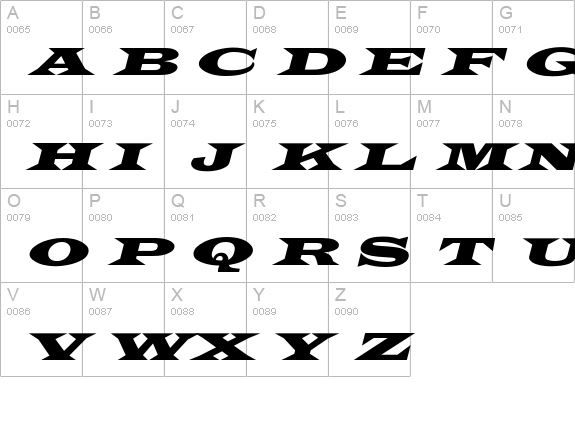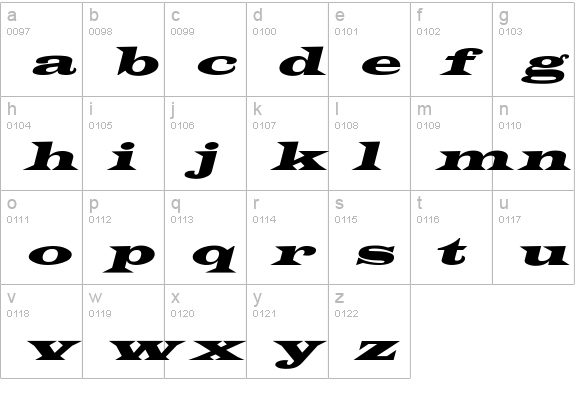
James-WideExtObl-Normal is the standard, neutral variant in the James typeface family \xE2\x80\x94 well suited to general body text, paragraphs, and standard typographic work.
Introducing James-WideExtObl-Normal font, a sleek and modern typeface that is sure to make a lasting impression. With its wide and extended oblique design, this font exudes confidence and sophistication. Perfect for a variety of design projects, from branding to advertising, James-WideExtObl-Normal is versatile and adaptable. What sets this font apart is its seamless combination of elegance and readability. Each character is expertly crafted, ensuring legibility at any size. The clean lines and balanced proportions make James-WideExtObl-Normal a pleasure to read, while the oblique angle adds a touch of uniqueness to your designs. But what truly makes James-WideExtObl-Normal font stand out is its accessibility. It is freely available to download at FontsMarket.com, allowing designers and creatives to easily incorporate it into their projects without any hassle. Whether you're a professional designer or just starting out, this font provides a high-quality and cost-effective solution to elevate your work. With its wide range of characters and punctuation marks, James-WideExtObl-Normal font offers endless possibilities for customization. Whether you're designing a logo, creating a website, or crafting a poster, this font will help you achieve a polished and professional look. So why wait? Download James-WideExtObl-Normal font today from FontsMarket.com and unlock the potential to create stunning and impactful designs. With its free availability and exceptional quality, this font is a must-have for any designer looking to make a statement.